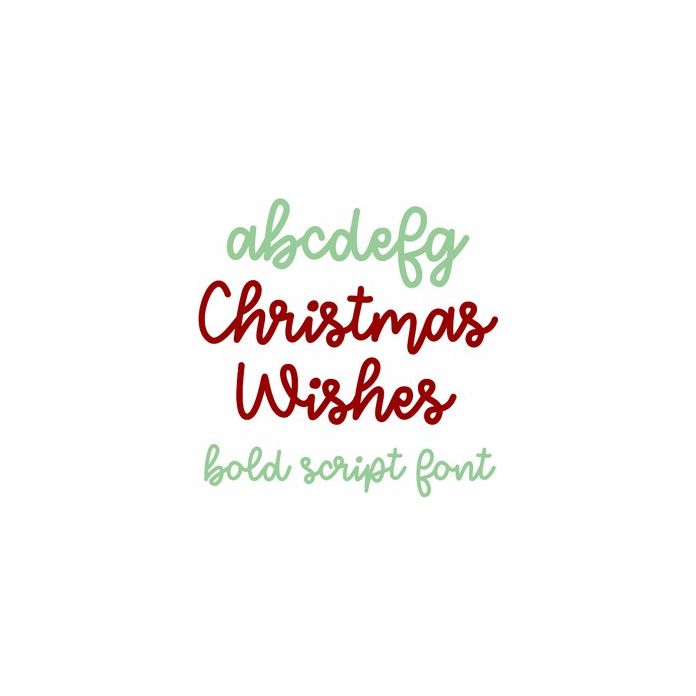
Christmas Wishes is a thick handwriting style script font perfect for lettering projects, cards, monograms, etc.
Includes alphabet, numbers, and punctuation.